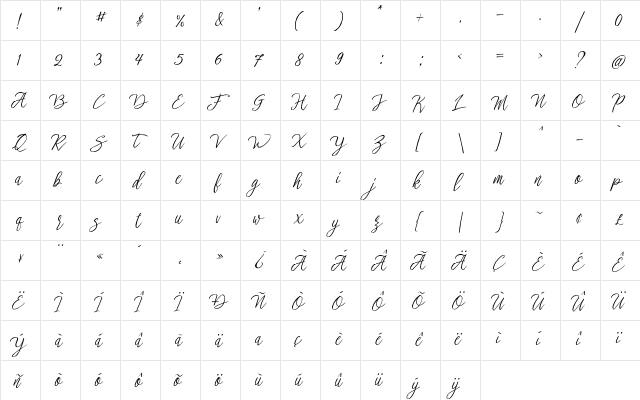
stefhanie typeface free demo Regular
Design Context for stefhanie typeface free demo Typeface
stefhanie typeface free demo is a composed and adaptable typeface that performs quietly and consistently across a wide range of design contexts.